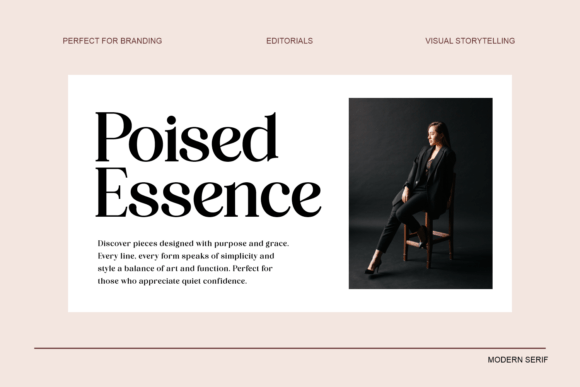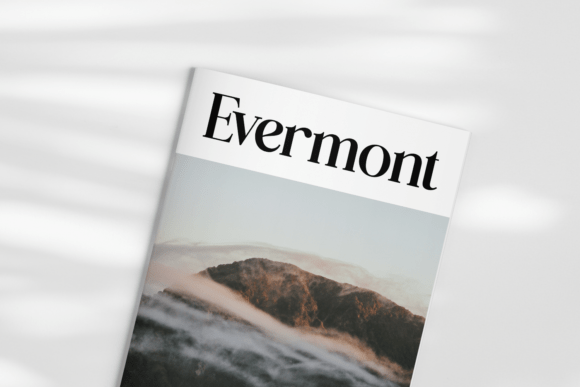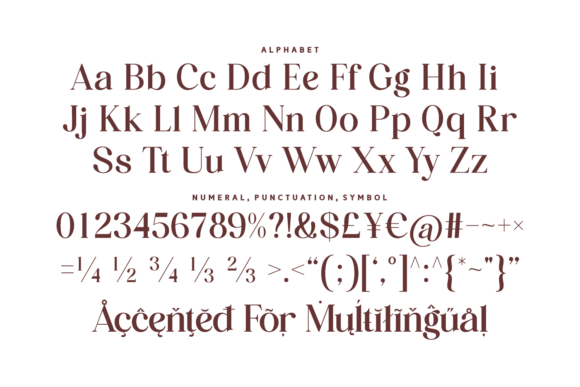
An introductory image for “Balogem,” a modern serif typeface. The design is minimalist and elegant, featuring bold black text, adding a sophisticated and artistic touch.